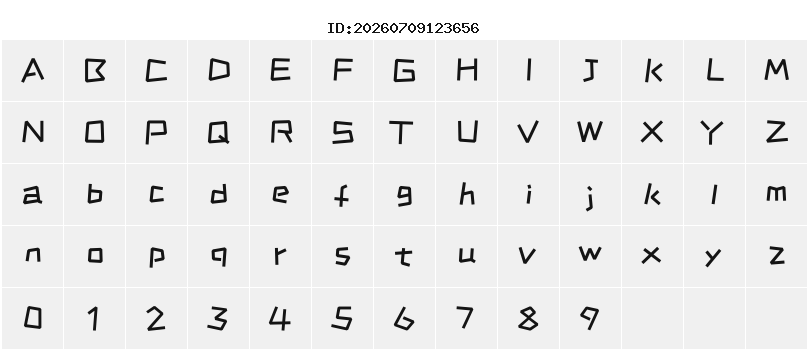
站酷快乐体 开源版 Preview
• Font Name: 站酷快乐体 开源版
• Font Style: 常规
• Font ID: 站酷快乐体 开源版
• Full Font Name: 站酷快乐体 开源版
• Version: Version 3.53;December 24, 2021;FontCreator 13.0.0.2613 64-bit
• PostScript Name: ZCOOLKuaiLe
• Designer: Lui Bingke
• Manufacturer: ZCOOL
About 站酷快乐体 开源版.ttf
站酷快乐体 开源版.ttf is a modern, elegant sans-serif font designed for ultimate readability and visual harmony. Perfect for branding, headlines, web design, and print materials.